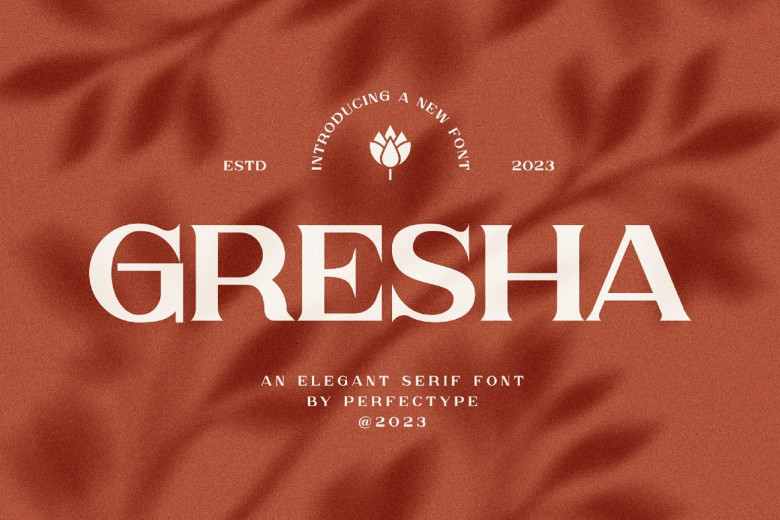
Gresha Font
Gresha is an elegant serif typeface designed with contemporary appeal. Ideal for logos, branding, wedding designs, advertisements, social media posts, packaging for products labels, photography, invitations, watermarks, stationery, projects with high comprehension levels and more,
Gresha can be found used across a variety of applications including packaging for products designed with great comprehension in mind.
Gresha Serif Font